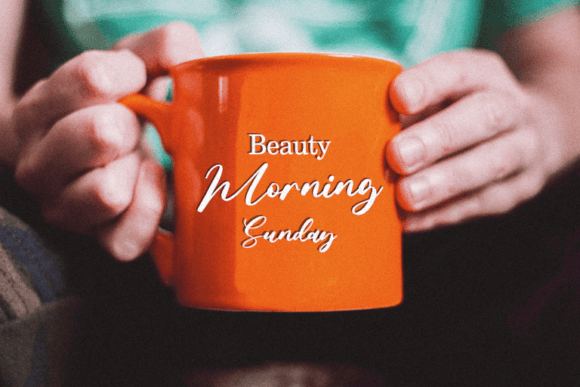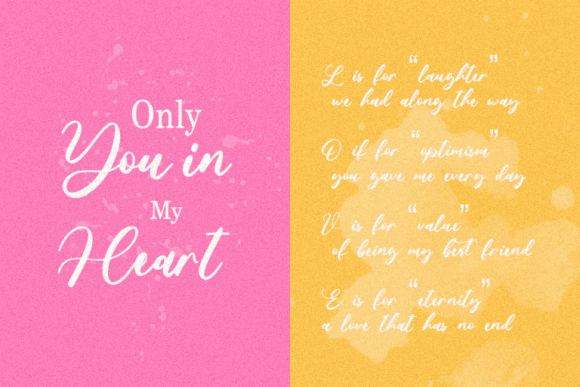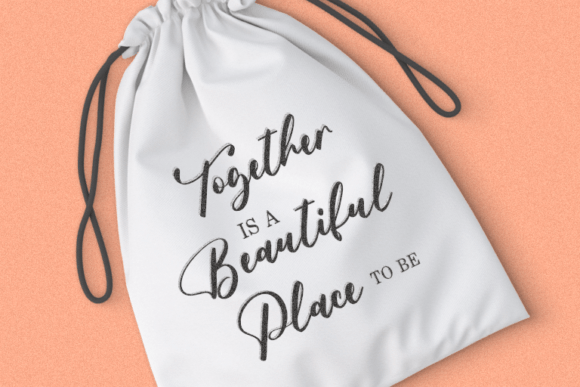
Discover the Elegance of Danette Ethell Font: A Lovely Script Font for Your Designs
Are you looking for a font that exudes elegance and class? Look no further than the Danette Ethell font, a lovely and delicate script font that is perfect for adding a touch of sophistication to your designs. In this article, we’ll take a closer look at the Danette Ethell font, its features, and how you can use it to elevate your designs.
What is Danette Ethell Font?
Danette Ethell is a beautifully crafted script font that is designed to add a touch of elegance and refinement to your designs. This font is perfect for those who need a beautiful and refreshing look to their designs, whether it’s for a branding project, wedding invitation, or social media graphics.
Features of Danette Ethell Font
The Danette Ethell font has several features that make it a standout choice for designers and crafters. Some of its key features include:
- Delicate and Elegant Design: The Danette Ethell font has a delicate and elegant design that exudes sophistication and class.
- Script Style: This font is a script font, which means it has a flowing and connected style that is perfect for adding a touch of elegance to your designs.
- High-Quality Letters: The Danette Ethell font features high-quality letters that are crisp and clear, making it perfect for use in both digital and print designs.
- Easy to Read: Despite its delicate design, the Danette Ethell font is easy to read, making it perfect for use in body text and headings.
Uses of Danette Ethell Font
The Danette Ethell font is a versatile font that can be used in a variety of design projects, including:
- Branding and Logo Design: Use the Danette Ethell font to create a sophisticated and elegant brand identity that will set your business apart.
- Wedding Invitations and Stationery: This font is perfect for creating beautiful and elegant wedding invitations, stationery, and other paper goods.
- Social Media Graphics: Use the Danette Ethell font to add a touch of elegance to your social media graphics, including Facebook posts, Instagram stories, and more.
- Packaging Design: This font is perfect for use in packaging design, where a touch of elegance and sophistication can make a big impact.
Tips for Using Danette Ethell Font
Here are a few tips for using the Danette Ethell font in your designs:
- Use it Sparingly: Because of its delicate design, it’s best to use the Danette Ethell font sparingly, such as in headings or titles.
- Pair it with a Bold Font: Pair the Danette Ethell font with a bold font to create a striking contrast that will make your design stand out.
- Experiment with Colors: The Danette Ethell font looks great in a variety of colors, so don’t be afraid to experiment and find the perfect color to match your brand or design.
In conclusion, the Danette Ethell font is a lovely and delicate script font that exudes elegance and class. With its delicate design, high-quality letters, and ease of use, this font is perfect for designers and crafters who need a beautiful and refreshing look to their designs. Whether you’re creating a branding project, wedding invitation, or social media graphics, the Danette Ethell font is a great choice.